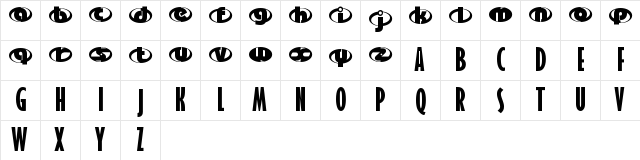
the Incredibles Regular
Design Context for the Incredibles Typeface
the Incredibles is a composed and adaptable typeface that performs quietly and consistently across a wide range of design contexts.